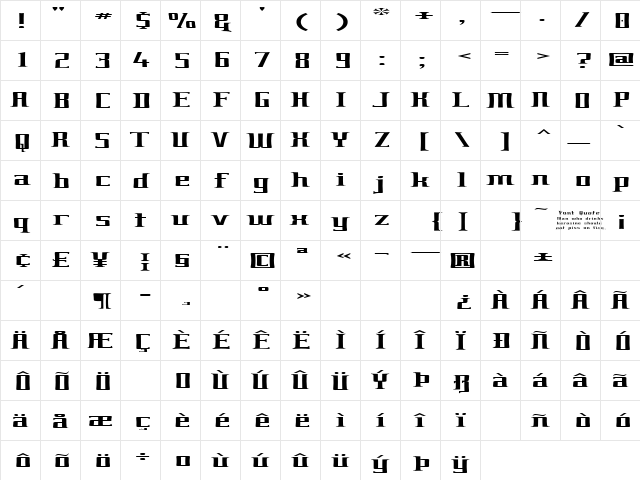
Cultural Stupidity Regular
| Designer | Graham Meade |
Design Context for Cultural Stupidity Typeface
Cultural Stupidity is a composed and adaptable typeface that performs quietly and consistently across a wide range of design contexts.